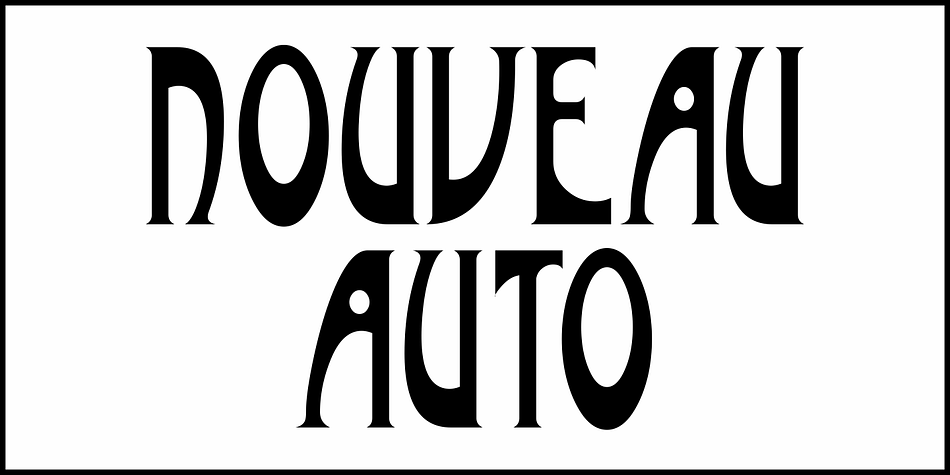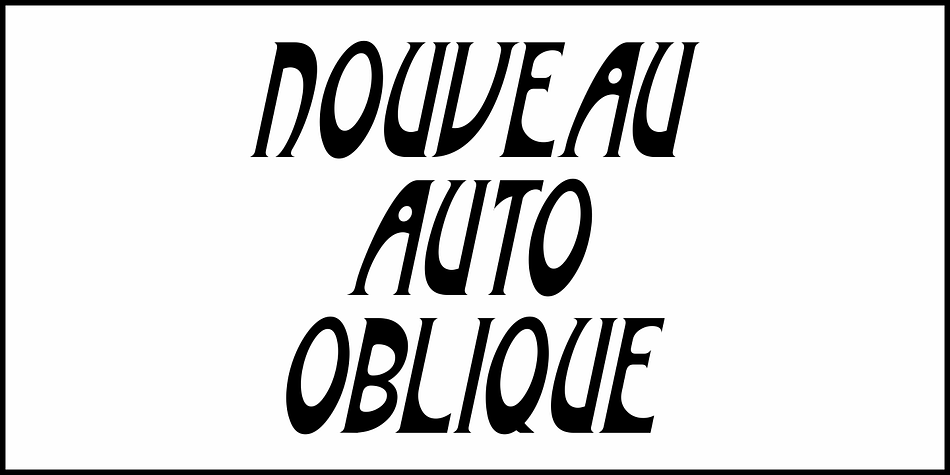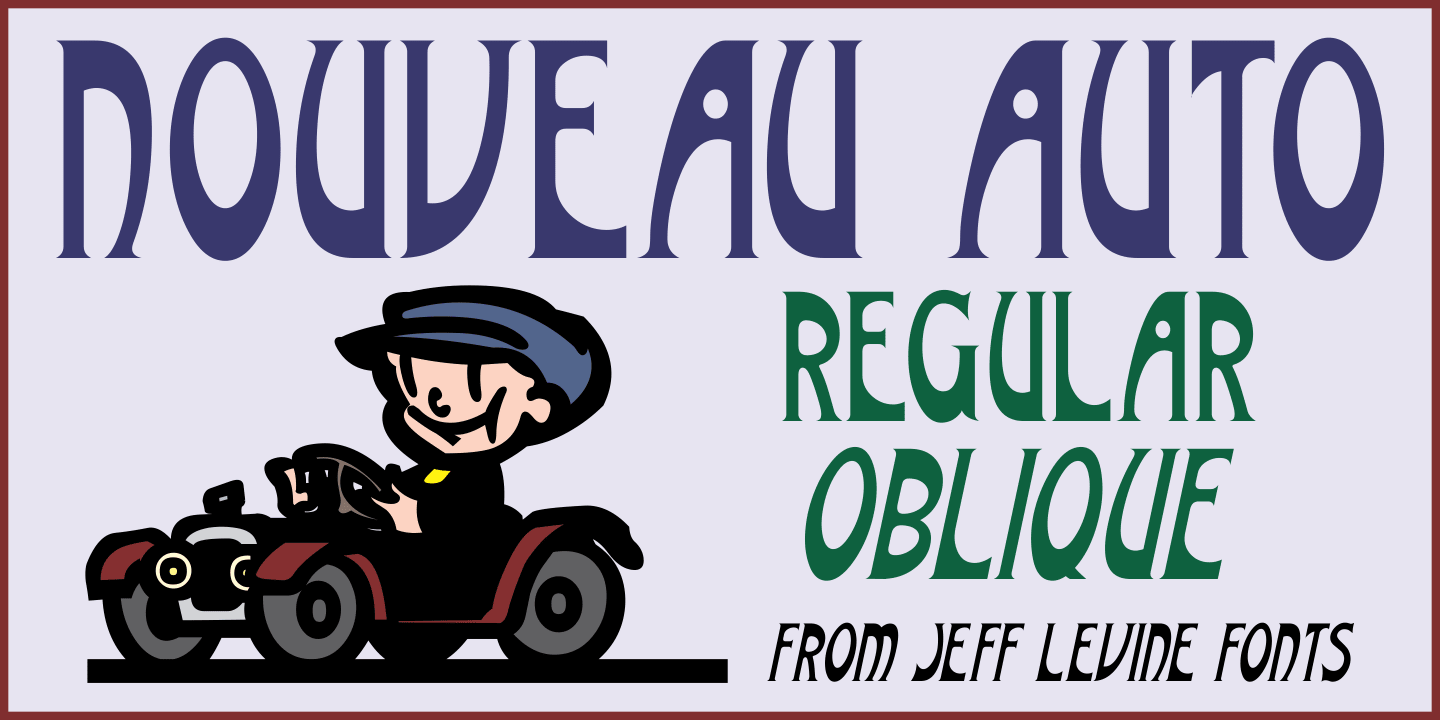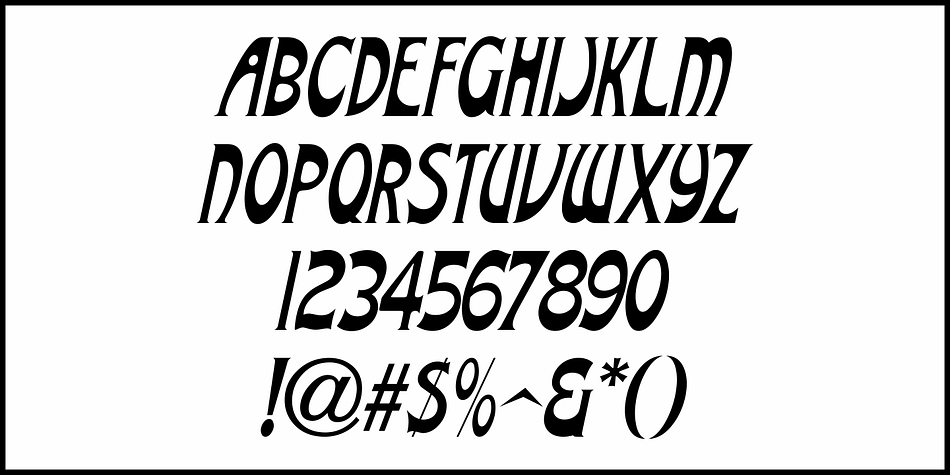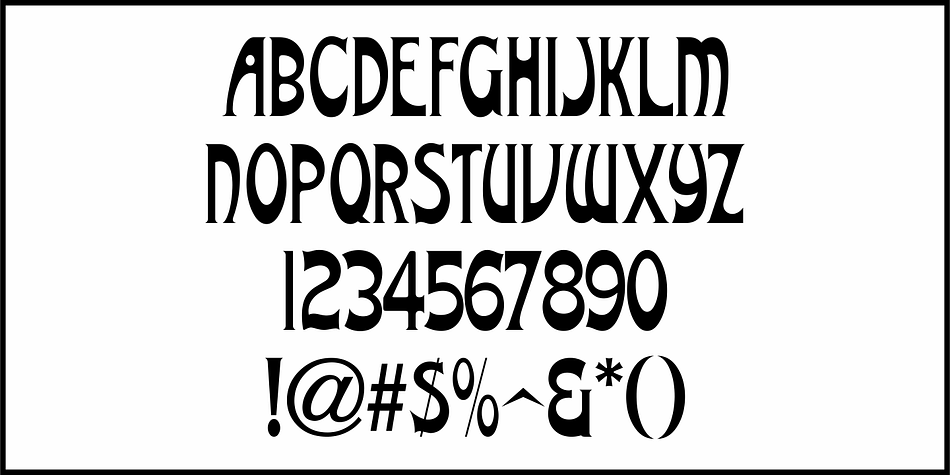
NOUVEAU AUTO JNL
Designed by Jeff Levine, Nouveau Auto JNL is an art nouveau font family. This typeface has two styles and was published by Jeff Levine Fonts.
“The Auto Show” is the title of an early 1900s pieces of sheet music proving that America has had a fascination with cars since the earliest days of the automotive industry.
The song sheet’s title was hand lettered in a casual Art Nouveau style which has been re-drawn digitally as Nouveau Auto JNL, and is available in both regular and oblique versions… and what’s better than a nouveau auto (a new car)?